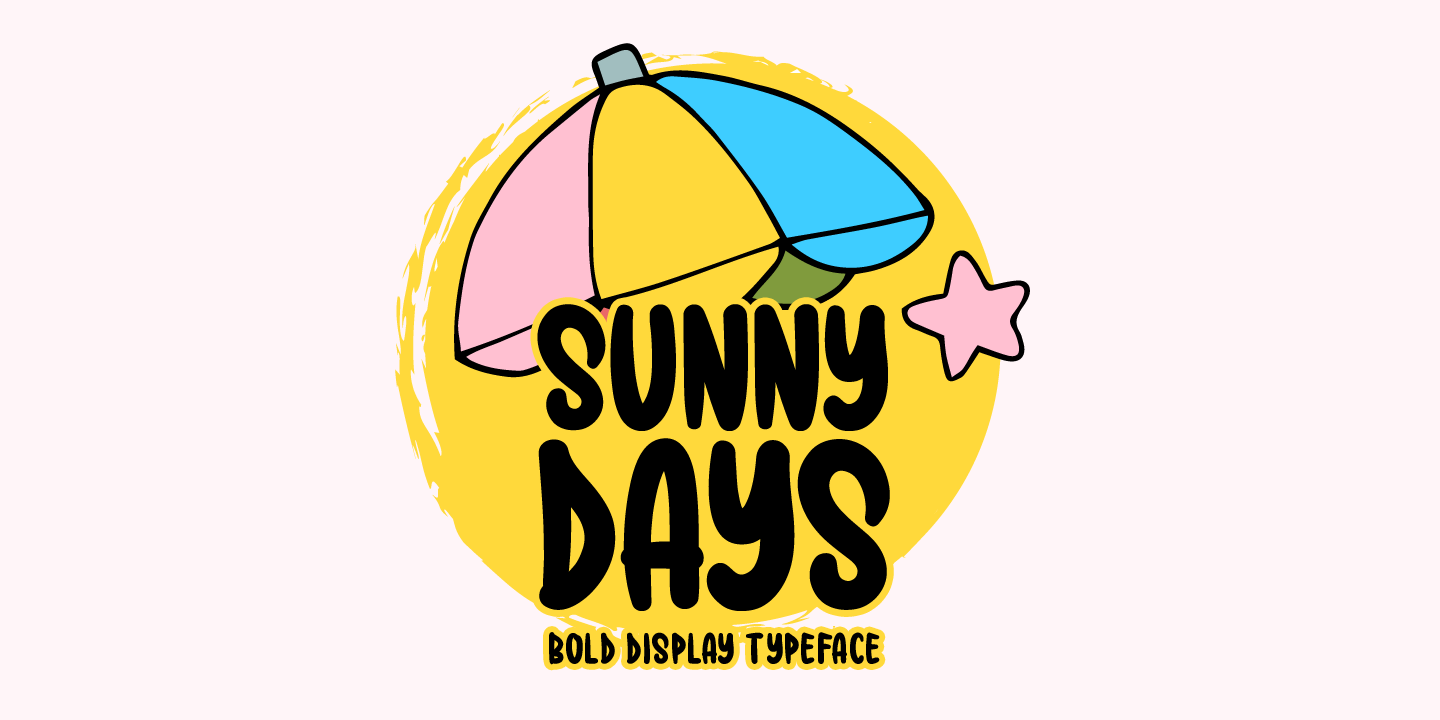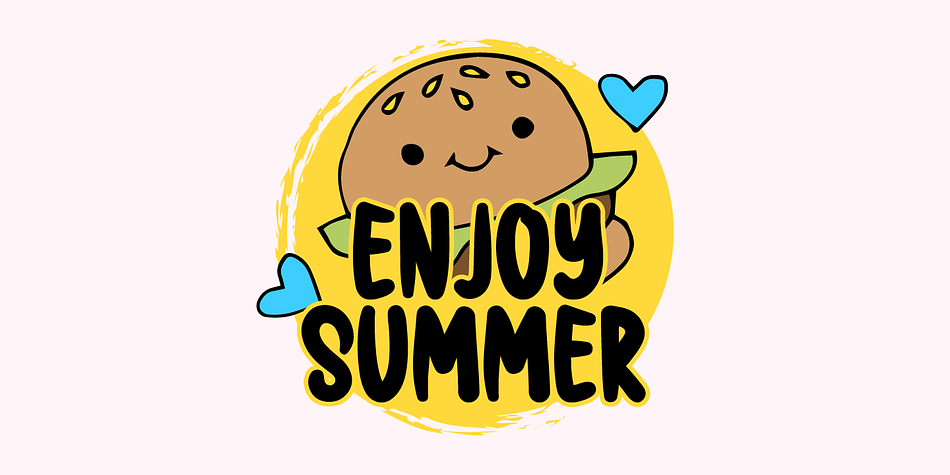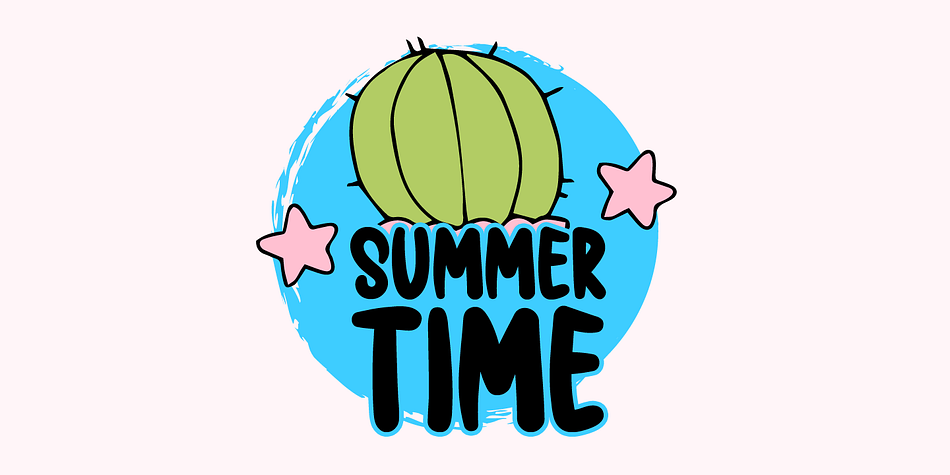
Designed by Md. Shohail Bhuiyan, Sunny Days is a brush display font family published by Seemly Fonts.
Sunny Days is a simple and friendly display font, featuring the perfect amount of trendiness. This original look will appeal to a wide range of crafty ideas, from letterheads and titles to stationery.